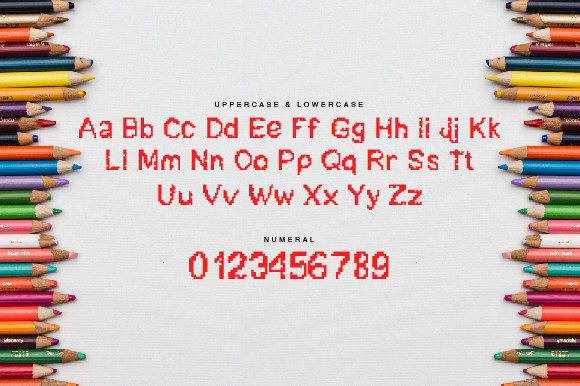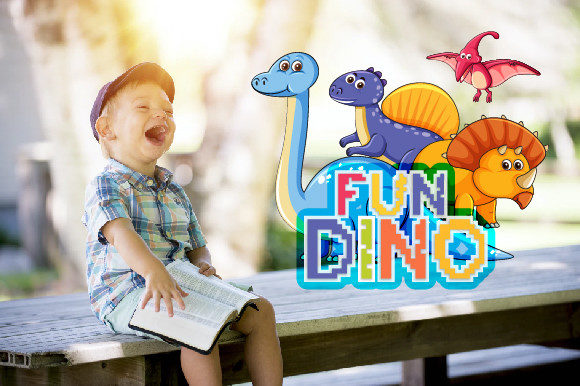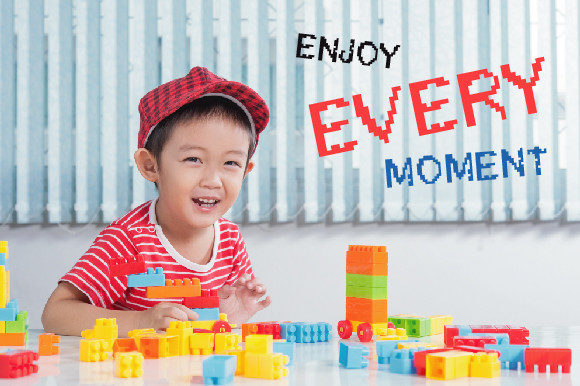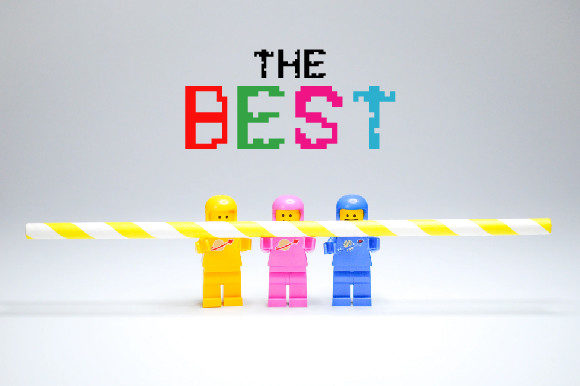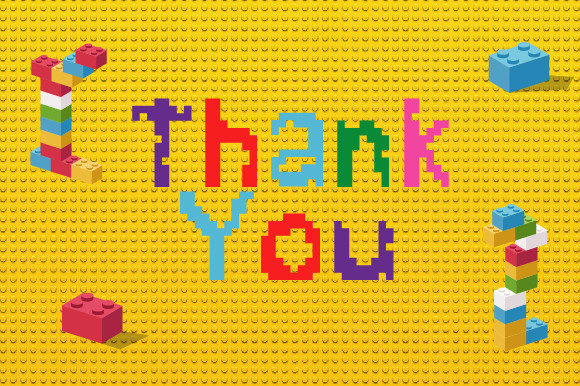
Introducing Artic Font: The Playful and Fun Decorative Font for Children’s Projects
Are you a designer, crafter, or DIY enthusiast looking for a font that can add a touch of playfulness and fun to your children’s projects? Look no further than Artic Font! This delightful decorative font is specifically designed to bring a sense of whimsy and excitement to a wide range of projects, from games and storybooks to magazines and playroom items.
What Makes Artic Font So Special?
Artic Font is a one-of-a-kind decorative font that is sure to capture the imagination of children and adults alike. Its playful and fun design makes it perfect for projects that require a lighthearted and youthful touch. The font’s unique and quirky style is sure to add a personal touch to any project, making it stand out from the crowd.
Perfect for Children’s Projects
Artic Font is specifically designed with children’s projects in mind. Its fun and playful design makes it ideal for:
- Games: Add a touch of excitement to your games with Artic Font’s playful and energetic design.
- Storybooks: Bring your storybooks to life with Artic Font’s whimsical and imaginative style.
- Magazines: Add a youthful touch to your magazines with Artic Font’s fun and lively design.
- Playroom items: Create fun and engaging playroom items, such as wall art, labels, and signs, with Artic Font’s playful style.
Why Choose Artic Font?
There are many reasons why Artic Font is the perfect choice for your children’s projects. Here are just a few:
- Unique and quirky design: Artic Font’s unique and quirky design is sure to capture the imagination of children and adults alike.
- Playful and fun: Artic Font’s playful and fun design makes it perfect for projects that require a lighthearted and youthful touch.
- Versatile: Artic Font can be used for a wide range of projects, from games and storybooks to magazines and playroom items.
Artic Font is a playful and fun decorative font that is perfect for children’s projects. Its unique and quirky design makes it ideal for games, storybooks, magazines, playroom items, and more. With its easy-to-use design and versatile style, Artic Font is the perfect choice for designers, crafters, and DIY enthusiasts of all skill levels. So why wait? Download Artic Font today and start adding a touch of playfulness and fun to your children’s projects!
Key Features of Artic Font
- Playful and fun decorative font
- Unique and quirky design
- Perfect for children’s projects
- Ideal for games, storybooks, magazines, playroom items, and more